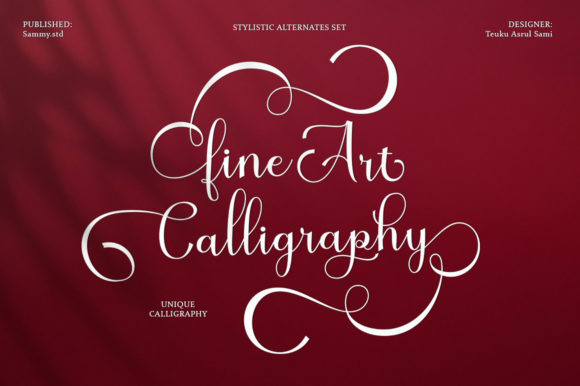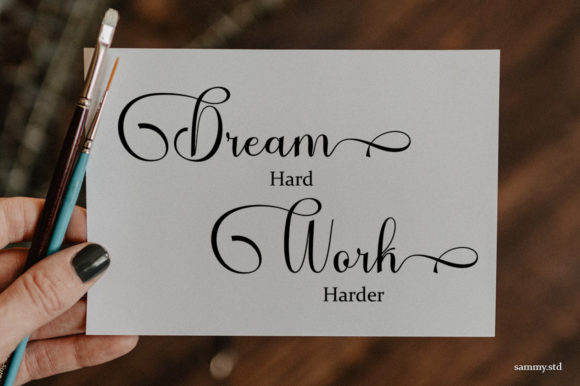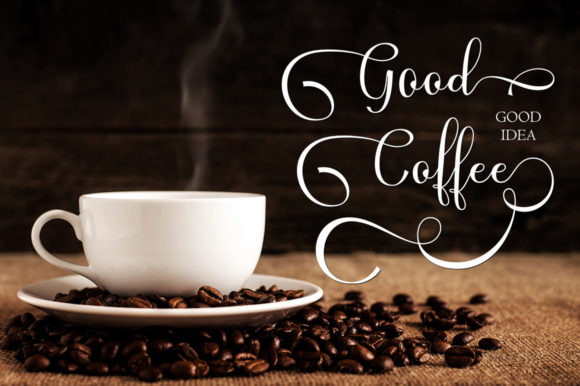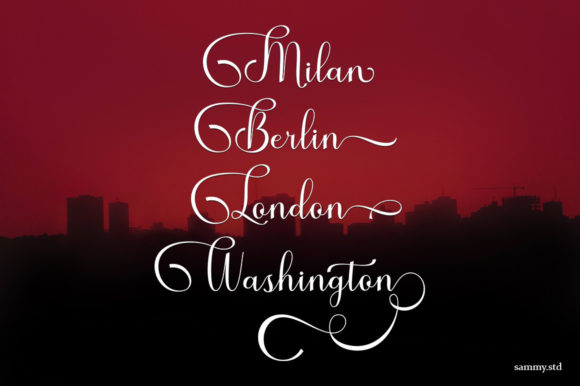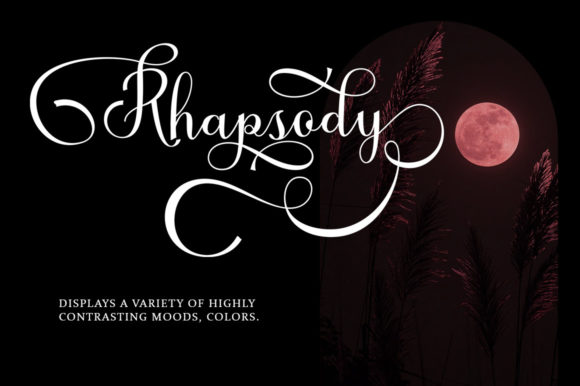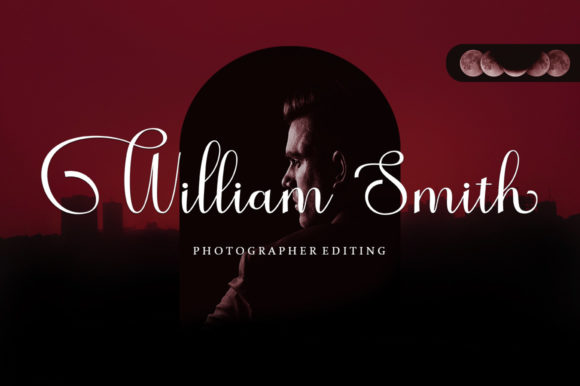
Benthura Script Font: Elevate Your Designs with Elegance and Class
In the world of typography, a well-chosen font can make all the difference in transforming a design from ordinary to extraordinary. For those seeking a lovely and delicate script font that exudes elegance and class, look no further than Benthura Script. This beautiful font is specifically crafted for designers, crafters, and anyone looking to add a touch of sophistication to their projects.
The Beauty of Benthura Script
Benthura Script is a stunning script font that boasts a unique and refreshing look. Its delicate strokes and elegant curves make it perfect for a wide range of design applications, from wedding invitations and stationery to branding and advertising materials. Whether you’re a professional designer or a DIY crafter, Benthura Script is sure to impress.
One of the standout features of Benthura Script is its PUA (Private Use Area) encoding. This means that users can access all of the font’s glyphs and swashes with ease, allowing for greater flexibility and creativity in design. With PUA encoding, you can effortlessly insert special characters, ligatures, and ornaments to give your designs a personal touch.
Benthura Script is a versatile font that can be used in a variety of design projects, including:
- Wedding invitations and stationery: Add a touch of elegance to your wedding designs with Benthura Script’s delicate and refined look.
- Branding and packaging: Use Benthura Script to create sophisticated and eye-catching logos, labels, and packaging materials.
- Advertising and marketing: Elevate your advertising and marketing materials with Benthura Script’s elegant and refined aesthetic.
- DIY crafts: Add a personal touch to your DIY crafts, such as handmade cards, gift tags, and scrapbooking projects.
Why Choose Benthura Script?
With so many script fonts available, why choose Benthura Script? Here are just a few reasons:
- Unique and refreshing look: Benthura Script’s delicate strokes and elegant curves set it apart from other script fonts.
- Elegant and classy: This font exudes sophistication and refinement, making it perfect for high-end designs.
- PUA encoded: Easy access to glyphs and swashes means you can get creative with your designs.
- Versatile: Benthura Script can be used in a wide range of design projects.
Tips for Using Benthura Script
To get the most out of Benthura Script, here are a few tips:
- Pair with contrasting fonts: Combine Benthura Script with bold or sans-serif fonts to create visual interest.
- Experiment with sizes: Use Benthura Script in various sizes to create hierarchy and emphasis in your designs.
- Play with swashes: Take advantage of Benthura Script’s PUA encoding to add decorative swashes and flourishes.
In conclusion, Benthura Script is a beautiful and elegant script font that is sure to elevate your designs. With its delicate strokes, elegant curves, and PUA encoding, this font offers endless possibilities for creative expression. Whether you’re a professional designer or a DIY crafter, Benthura Script is a must-have font in your collection.